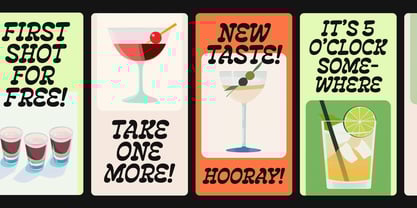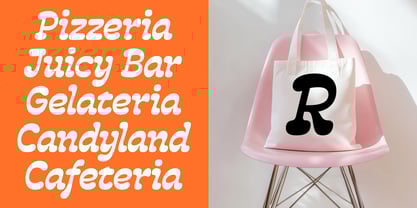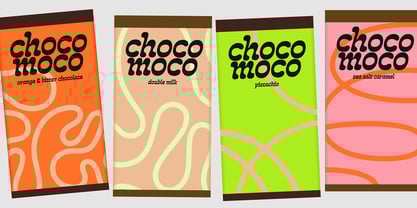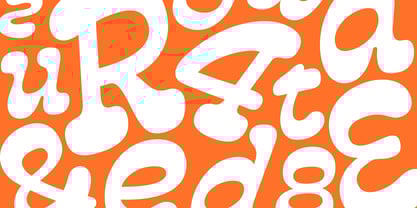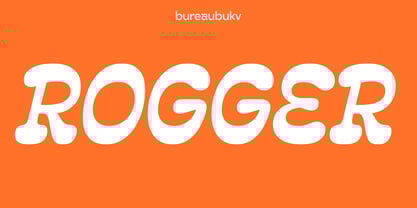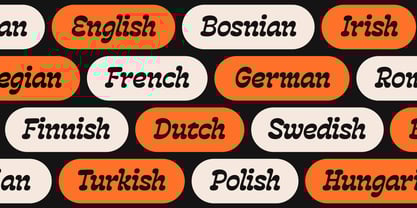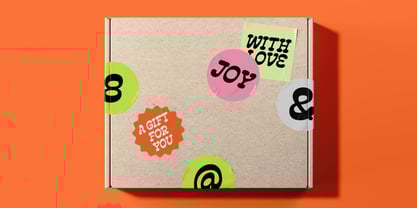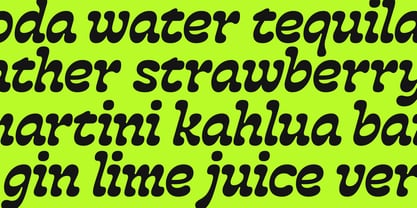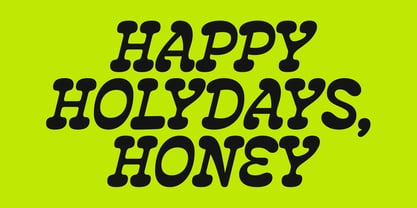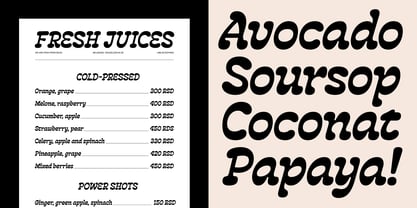
BBKV Rogger
by Bureaubukv
BBKV Rogger
BBKV Rogger is a typeface characterized by soft lines and reverse contrast, making it visually very appealing and modern, giving your text an unusual, dynamic look. The plump serifs make the font more expressive, while the smooth curves and rounded shapes add softness and accessibility. The font fits perfectly in product packaging, especially for natural or premium goods where the focus is on freshness and quality. Alternatively, it can be used for designing posters, album covers, or logos for musical projects. Its style emphasizes creativity and an unconventional approach, making it ideal for music of various genres—from pop to indie rock. BBKV Rogger can be a great element for logos, branding, or advertising materials in the fashion industry. It brings style and refinement, making it suitable for designer brands that aim for exclusivity and originality.
BBKV Rogger is a versatile typeface that can be used in various fields that require a distinctive visual solution.